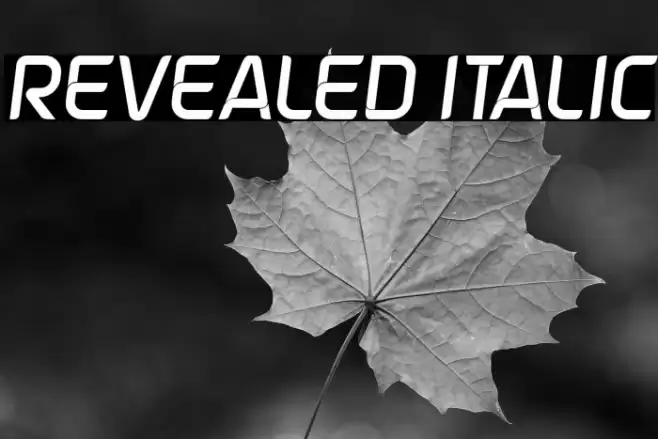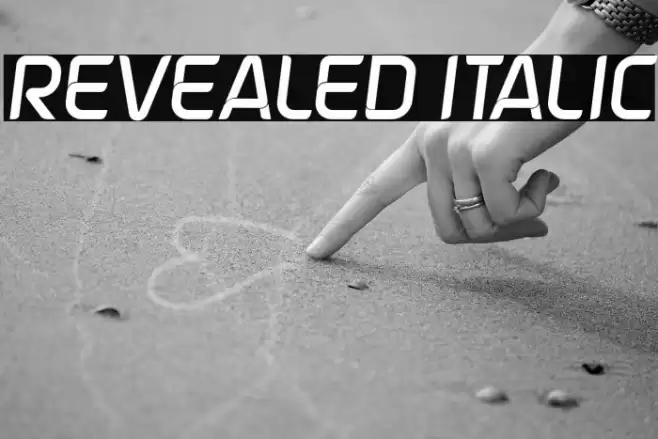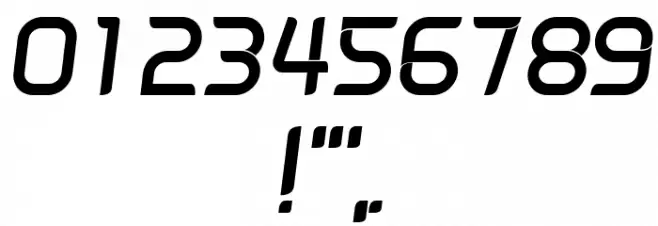
Revealed Italic Font
Revealed Italic Description
This font features a sleek, italicized design with a modern and dynamic appearance. The characters are slightly slanted, giving a sense of movement and speed. The strokes are consistent in thickness, providing a uniform look across all letters and numbers. The font maintains a clean and professional aesthetic, making it suitable for various applications. The rounded edges of the characters add a touch of softness, balancing the overall sharpness of the italic style. The spacing between characters is normal, ensuring readability while maintaining its stylish flair.
A modern, italicized font with a sleek and dynamic appearance from Uncategorized fonts.
- Proposed Projects: Ideal for branding, advertising, sports-related designs, and modern web interfaces.